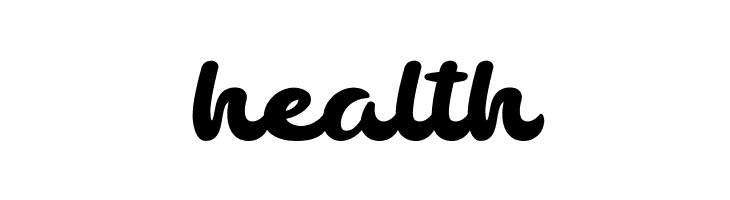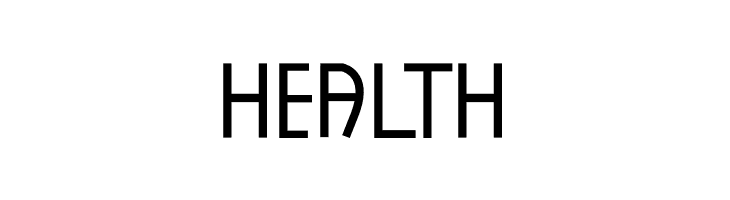
A playful, bold handwritten font with rounded edges and thick strokes.
A playful, whimsical font with smooth curves and elegant strokes.
A playful, bold script font with a melted chocolate appearance.
A bold, playful handwritten font with thick, uneven strokes and a lively appearance.
A bold, expressive handwritten font with thick, flowing strokes.
A bold, playful script font with a handwritten feel.
A geometric, angular font with a modern, tech-inspired design.
An elegant and flowing script font with graceful curves and loops.
A lively, flowing script font with elegant, connected strokes.
A playful, whimsical handwritten font with thin, flowing lines and irregular letterforms.